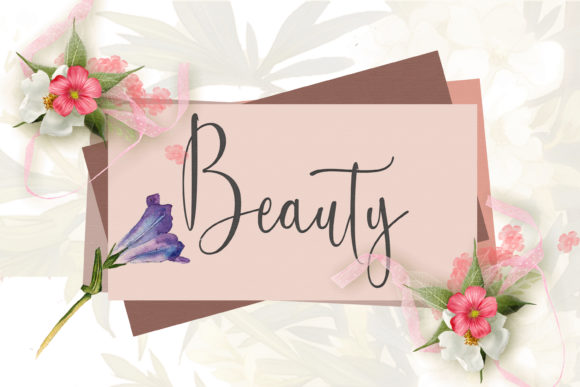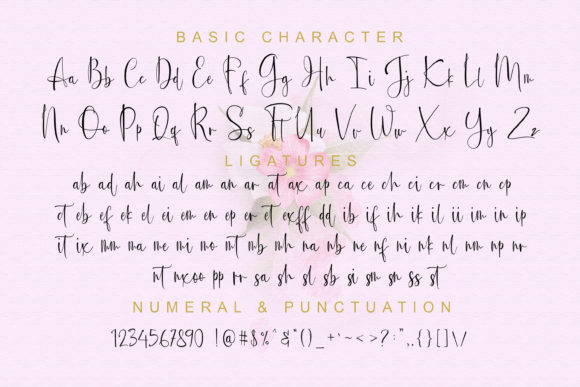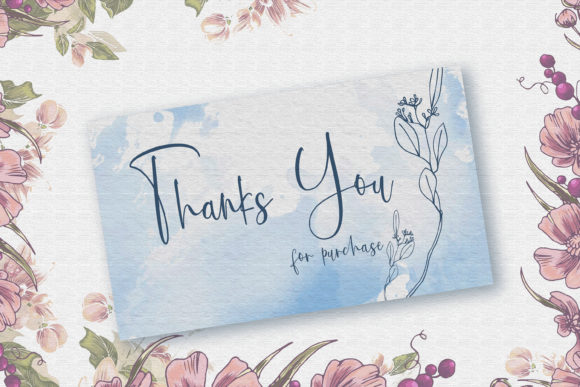
Introduction to Melistania Font
Melistania is a beautiful script font.
It has a classy, elegant, and modern look which can be used for logos, branding, invitations, stationery, wedding designs, social media posts, and any other design in need of a handwritten touch .
Key Features of Melistania Font
Why Choose Melistania Font?
Melistania Font offers exceptional quality and versatility, making it a valuable addition to your design toolkit. Whether you’re creating for personal projects or commercial use, Melistania Font delivers professional results.